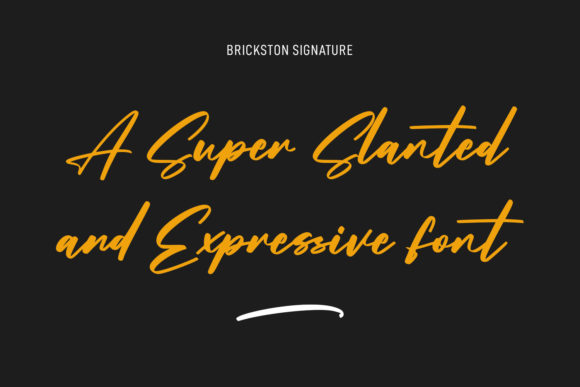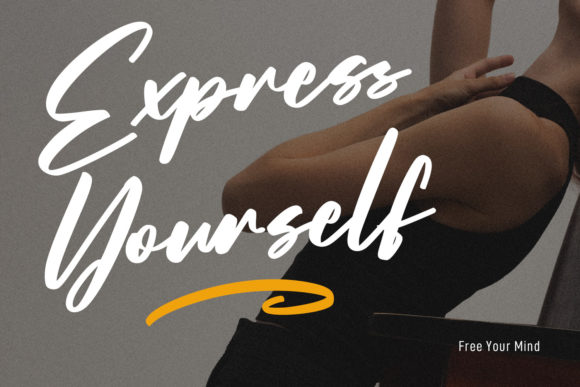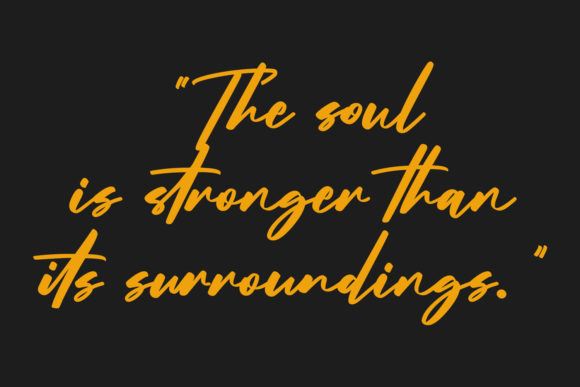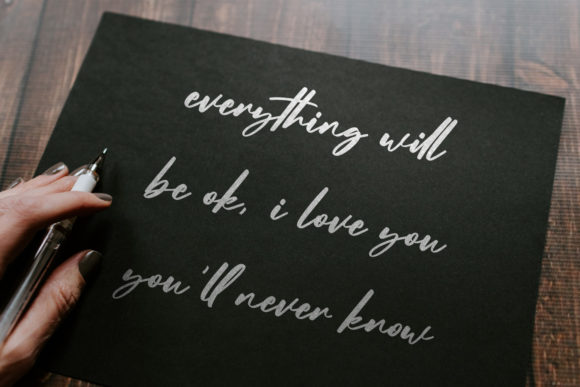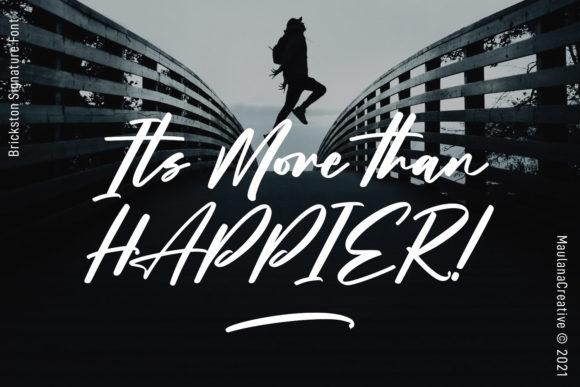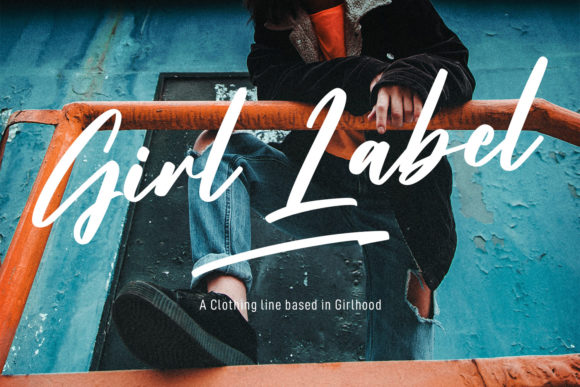
Brickston Script Font: Elevate Your Designs with Elegance and Sophistication
In the world of typography, a well-chosen font can make all the difference in the success of a design project. For designers and crafters seeking a font that exudes sophistication and elegance, look no further than the Brickston Script Font. This chic, relaxed script font is the perfect match for any project, offering a unique blend of style and versatility.
The Characteristics of Brickston Script Font
Brickston Script Font is distinguished by its stylish alternates and ligatures, which set it apart from more traditional script fonts. Its relaxed, yet refined appearance makes it an ideal choice for a wide range of applications, from wedding invitations and branding materials to packaging and digital media.
One of the standout features of Brickston Script Font is its extensive range of alternates and ligatures. These typographic elements allow designers to add a personal touch to their work, creating unique and eye-catching text that captures the viewer’s attention. Whether you’re looking to add a touch of whimsy or convey a sense of luxury, Brickston Script Font provides the flexibility to achieve your design goals.
Why Choose Brickston Script Font?
So, what makes Brickston Script Font the perfect choice for designers and crafters? Here are just a few reasons:
- Elegance and Sophistication: Brickston Script Font embodies a sense of refinement and poise, making it perfect for projects that require a touch of luxury.
- Versatility: With its extensive range of alternates and ligatures, Brickston Script Font can be adapted to suit a wide range of design styles and applications.
- Easy to Read: Despite its elegant appearance, Brickston Script Font remains highly legible, making it suitable for both digital and print media.
- Unique and Eye-Catching: The stylish alternates and ligatures in Brickston Script Font ensure that your design will stand out from the crowd.
Using Brickston Script Font in Your Designs
Incorporating Brickston Script Font into your designs is easy. Here are a few tips to get you started:
- Pair it with a Sans Serif Font: Combine Brickston Script Font with a clean sans serif font to create a striking contrast that adds visual interest to your design.
- Experiment with Alternates and Ligatures: Take advantage of the font’s extensive range of alternates and ligatures to add a personal touch to your text.
- Use it for Headings and Titles: Brickston Script Font is perfect for headings and titles, where its elegant appearance can make a lasting impression.
In conclusion, Brickston Script Font is a versatile and elegant script font that is sure to elevate your designs to the next level. Its stylish alternates and ligatures make it the perfect match for any project, from wedding invitations and branding materials to packaging and digital media. With its unique blend of sophistication and whimsy, Brickston Script Font is a must-have for designers and crafters seeking to create eye-catching and memorable designs.